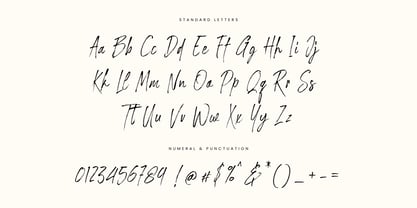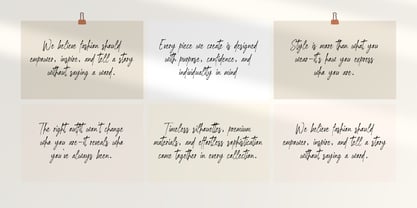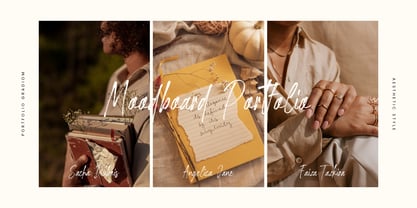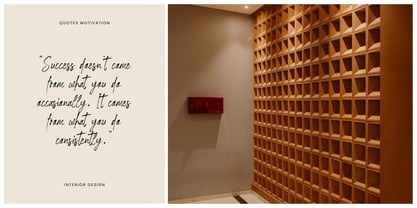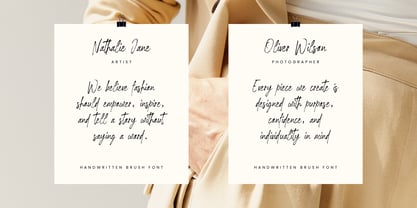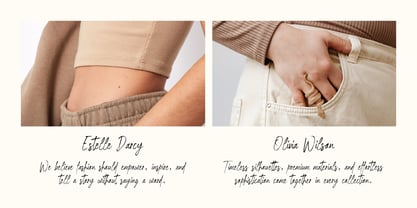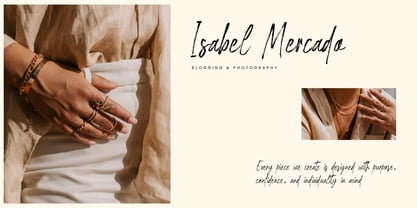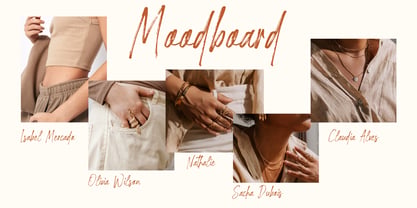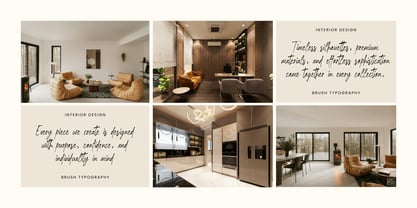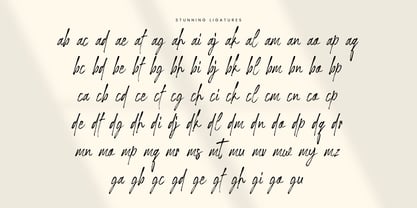
Hudmist
Introducing: Hudmist – A Handwritten Expression of Emotion
Illuminate your design with the strokes of a brush marker font.
Meet Hudmist, a handwritten font crafted with heartfelt precision and a deep love for organic lettering. Every stroke tells a story—fluid, personal, and full of soul. Designed to emulate the effortless charm of natural handwriting, Hudmist is perfect for creatives who crave authenticity in every design.
This font is packed with:
Uppercase & lowercase letters
Elegant ligatures
Multilingual support
Numbers & punctuation
Whether you're creating wedding invitations, branding for artisan products, Instagram quotes, magazine layouts, greeting cards, or dreamy packaging— Hudmist brings a touch of sincerity to every project.